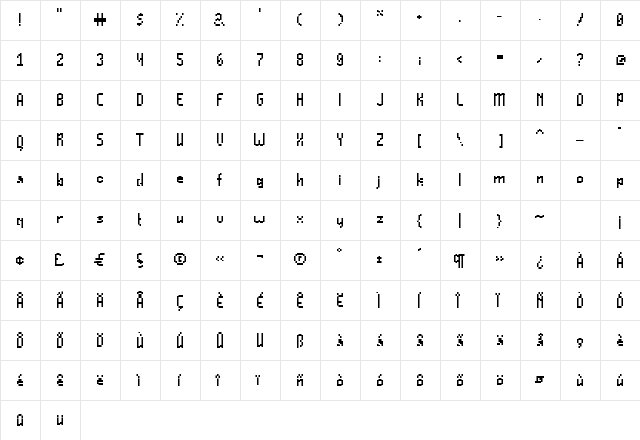
Annenski-Small Regular
Design Context for Annenski-Small Typeface
Annenski-Small is a composed and adaptable typeface that performs quietly and consistently across a wide range of design contexts.